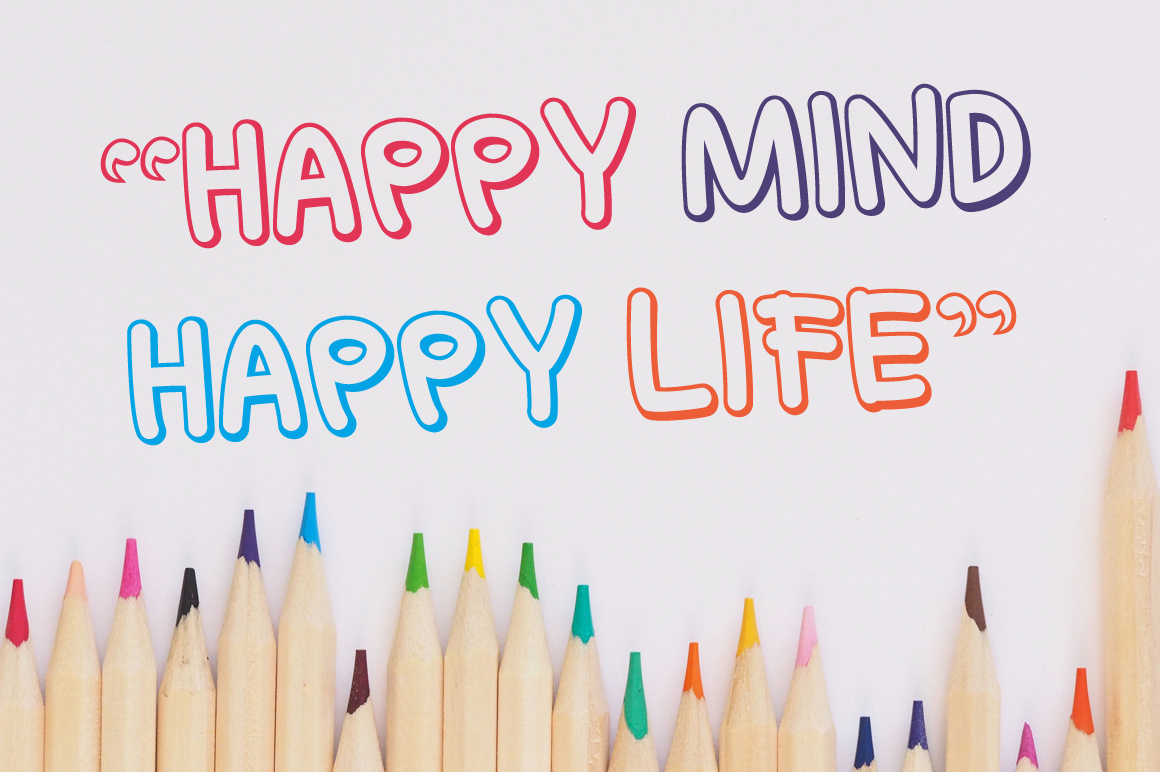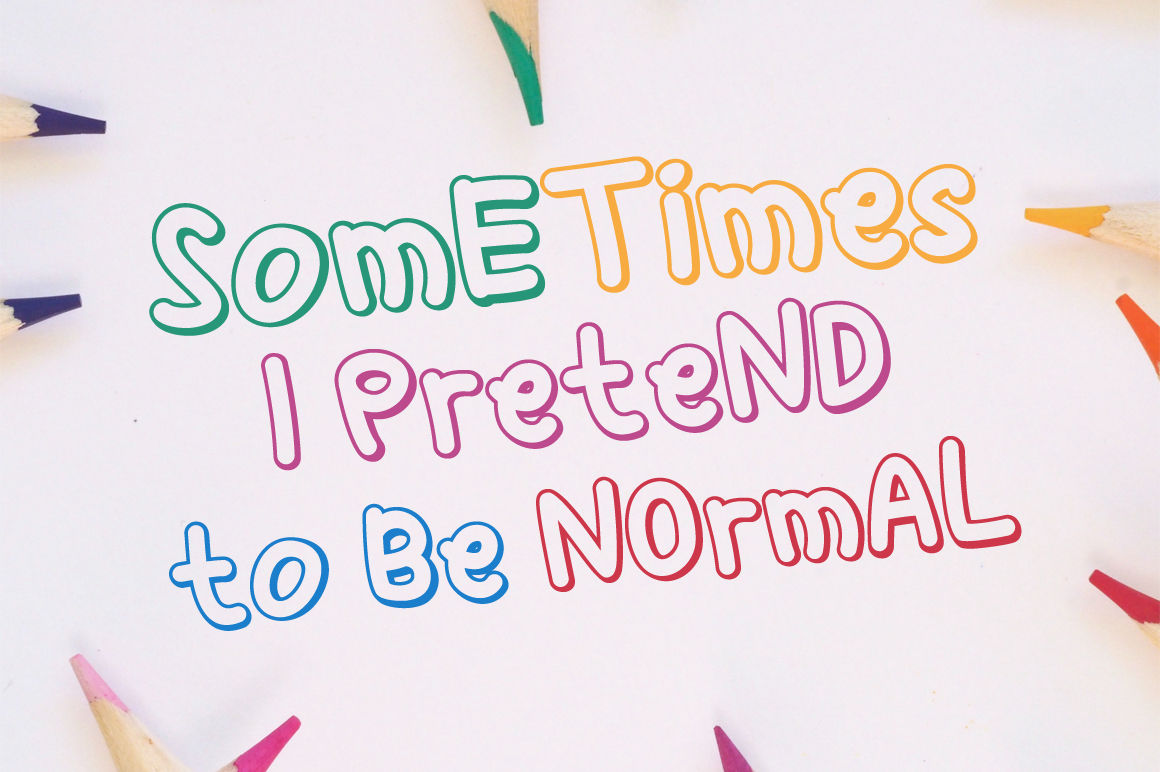
Funtasia Font
Funtasia Display Font is a unique display font with a very strong character that makes all designs look unique and modern. Funtasia Typeface has its own charm, so it will be very suitable to be combined with any style. Funtasia Typeface is interesting to use in designs such as books, movie posters, logos, branding, business cards, and others.